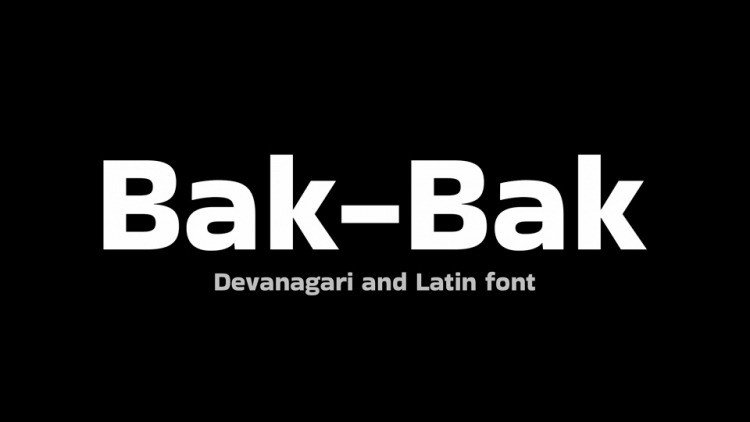
Bak-Bak Font
Bak-Bak Font is a free modern sans serif font created by Sanchit Sawaria and Saumya Kishore with square curves yet smooth shapes. It supports Latin and Devanagari.
Bak-Bak is perfect to add impression for titles and headings, and finesse to logo and branding projects.